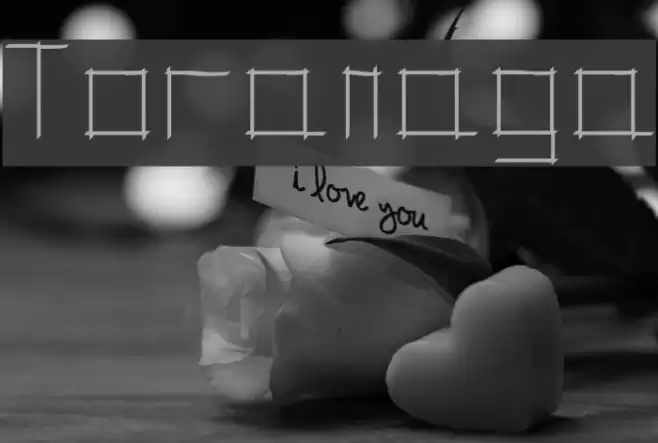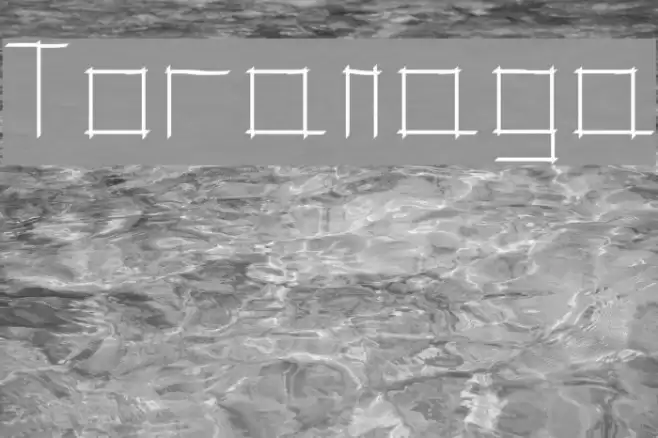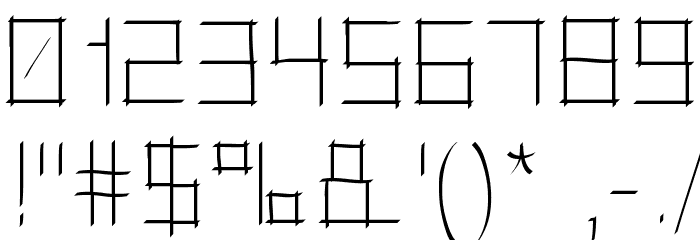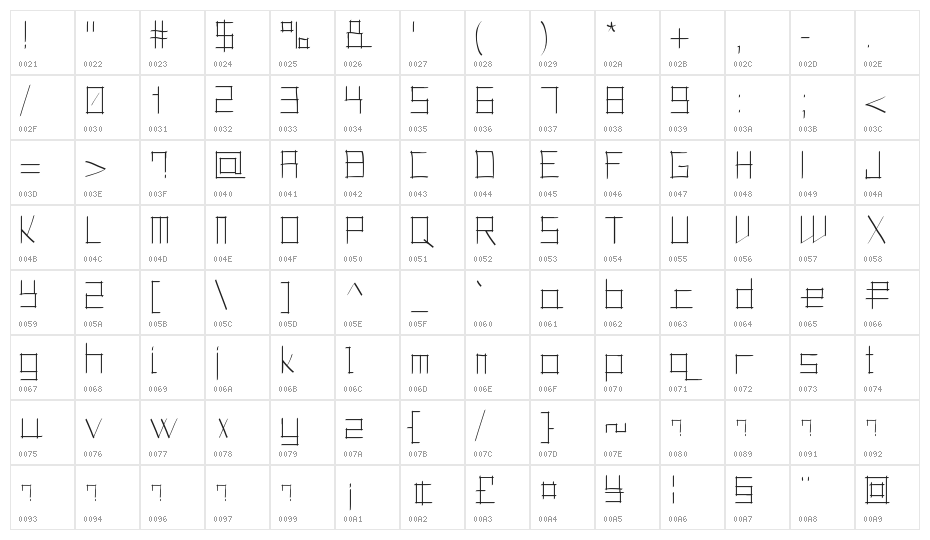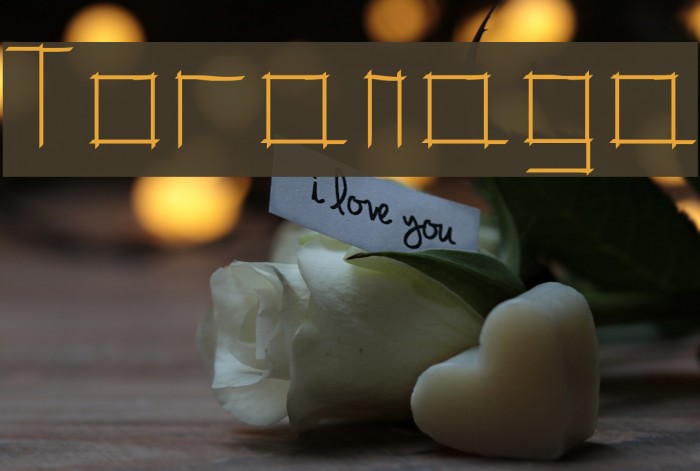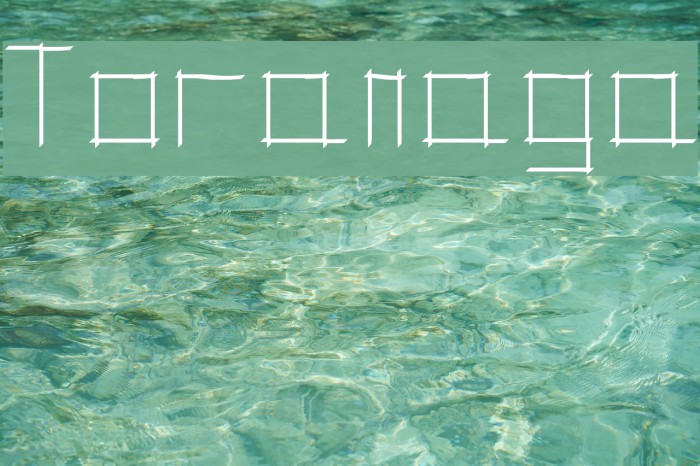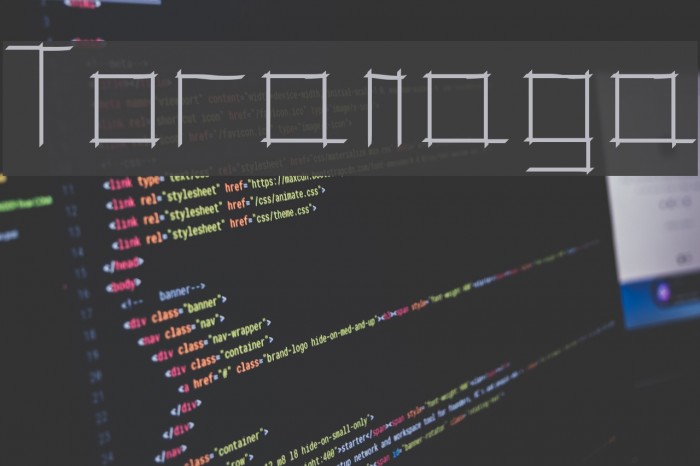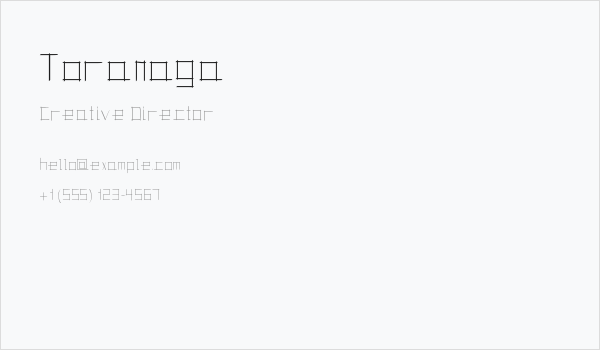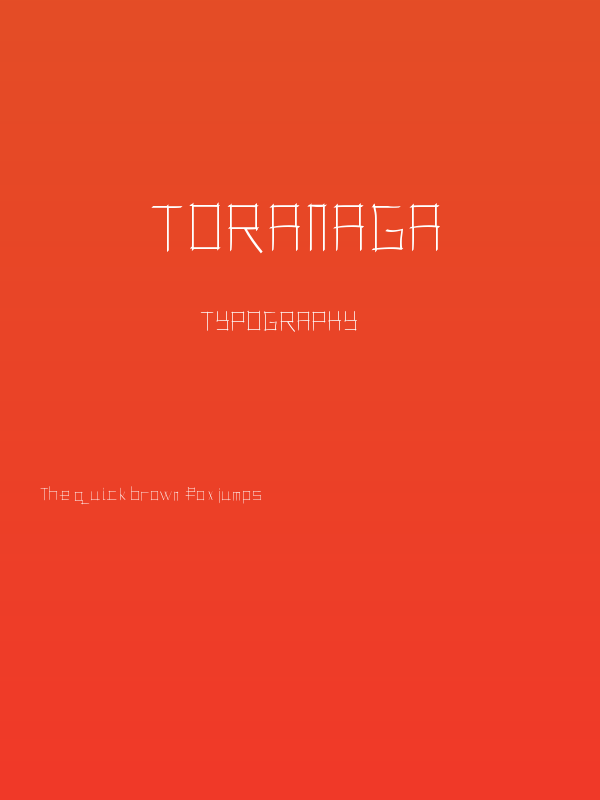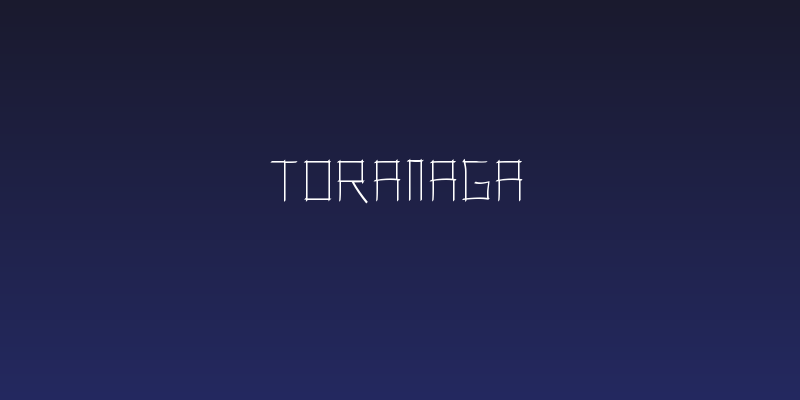
Toranaga Font
Toranaga Description
This font features a unique, angular design with sharp, pointed edges and a geometric structure. The characters are constructed with straight lines and acute angles, giving them a modern and edgy appearance. The uppercase and lowercase letters maintain a consistent style, with a uniform height and width that creates a cohesive look. Numbers and special characters follow the same design principles, ensuring a harmonious overall aesthetic. The font's distinct style makes it stand out, while its legibility remains intact due to the clear separation between characters.
A modern, angular font with sharp edges and geometric structure from Uncategorized fonts.